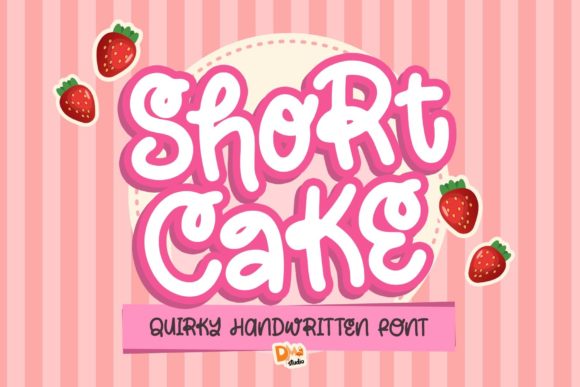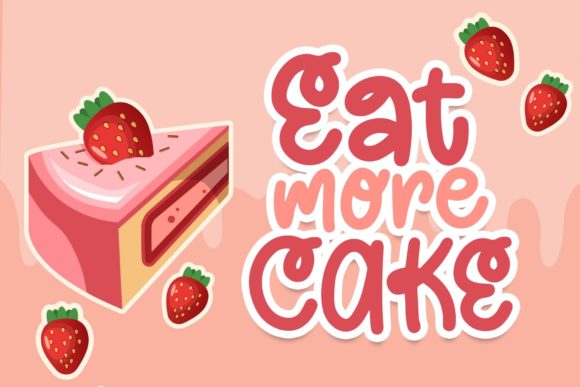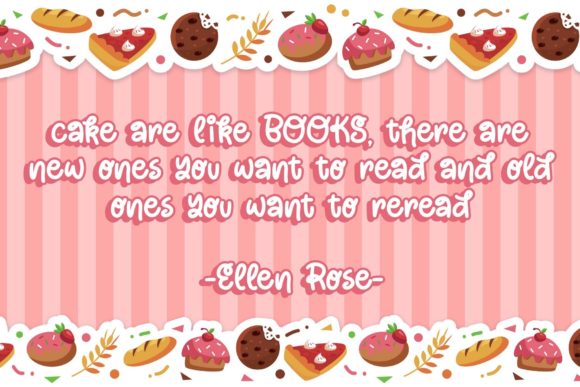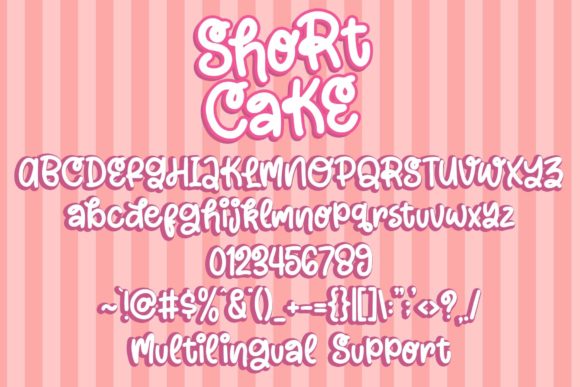
Short Cake Font
About Short Cake Font
Short Cake is a chic, trendy and fun handwritten font. Whether you use it for cartoon related designs, children games or just any creation that requires a lovely touch, this font will be an amazing choice.